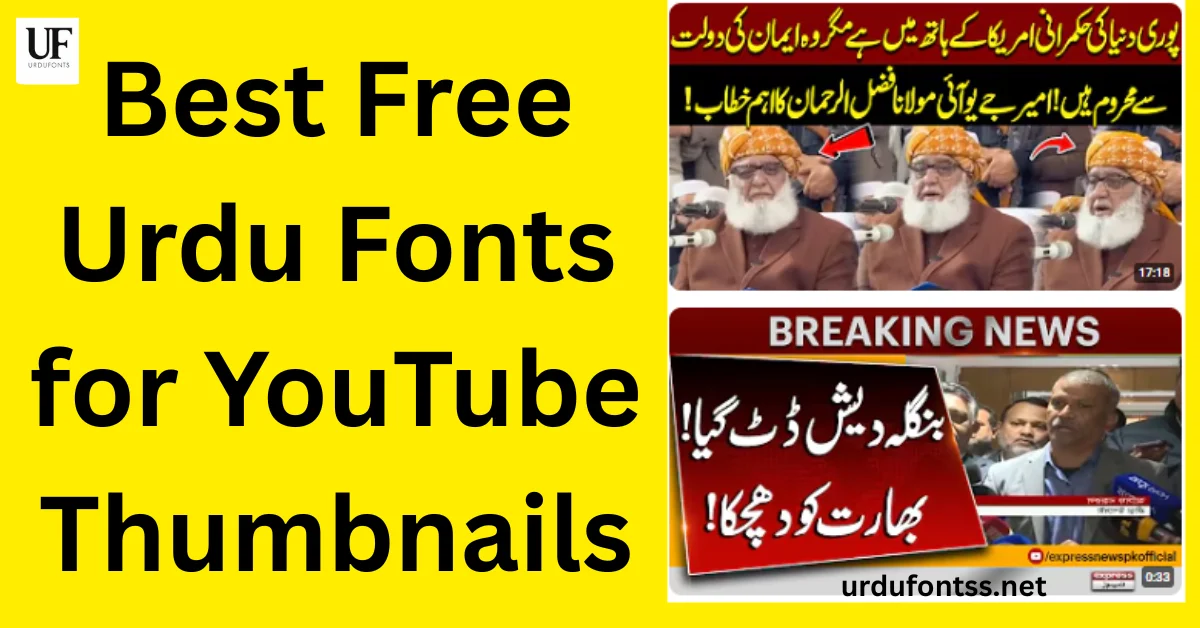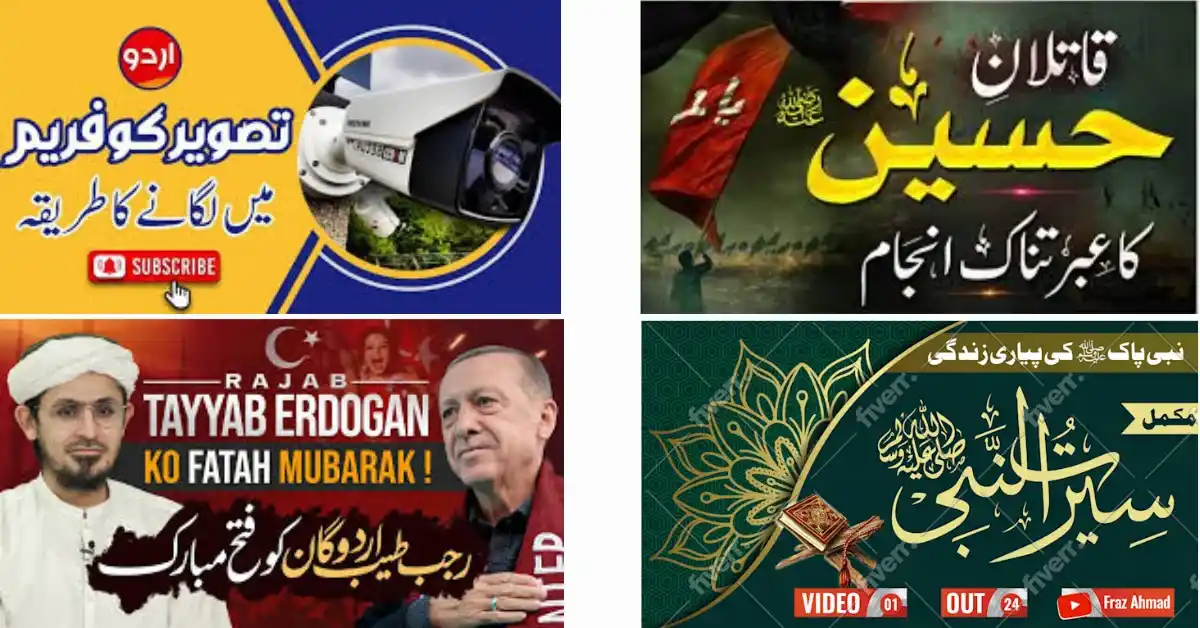
Best Free Urdu Fonts for YouTube Thumbnails – Guide for Creators
The best free Urdu fonts for YouTube thumbnails are the bold, high-contrast faces that stay readable at thumbnail size: UL Sajid Heading for punchy titles, Shamsheer Unicode for news channels, Tehreer Regular for modern vlogs, and Jameel Noori Nastaleeq for traditional and Islamic content. A thumbnail has about one second to earn a click — this guide covers the picks by channel niche, the design rules that make Urdu text readable at small sizes, and how to get these fonts into CapCut, PixelLab and Photoshop.
What Makes a Font Work on a Thumbnail
- Readable at phone size: most viewers see thumbnails on a phone — the font must survive being shrunk to a few centimetres wide.
- High contrast: bold strokes and open letterforms beat thin calligraphy; decorative faces fail where bold ones win.
- Three words or fewer: thumbnails are not headlines — keep the text to the shortest phrase that carries the hook.
- Niche voice: a news channel, a vlog and an Islamic channel want different moods — the picks below are grouped by niche.
Best Free Urdu Fonts for YouTube Thumbnails
Punchy titles — UL Sajid Heading
Built for headings, UL Sajid Heading is the default thumbnail face: heavy, compact and readable at the smallest sizes YouTube shows.
News channels — Shamsheer Unicode
News thumbnails need instant authority. Shamsheer Unicode is plain and fast-reading — the informational voice viewers trust for breaking news.
Vlogs and lifestyle — Tehreer Regular
Modern channels want a contemporary feel. Tehreer Regular is clean and light with 689 verified glyphs — modern without looking trendy.
Islamic and traditional content — Jameel Noori Nastaleeq
Religious lectures, naats and classical poetry need the traditional voice. Jameel Noori Nastaleeq carries that register — set it large, since Nastaliq needs room.
Small supporting text — Urdu Naskh Unicode
Episode numbers, dates and sub-lines need a compact, even face — Urdu Naskh Unicode stays legible where display faces turn to noise.
Poetry and drama — Zohra Unicode
For mushaira clips, drama OSTs and emotional content, Zohra Unicode brings a softer, expressive hand — use it for one line only, never the whole thumbnail.
Thumbnail Design Tips for Urdu Text
- Two faces maximum: one display face for the hook, one plain face for the sub-line — more than that looks cluttered at small size.
- Contrast against the background: white or yellow Urdu text on a darkened photo area; add a subtle stroke or shadow so letters separate from busy backgrounds.
- Right-align for RTL: Urdu reads right to left — anchor the text block to the right side of the thumbnail.
- Leave the face visible: if the thumbnail has a person, keep text off their face — text over faces kills clicks.
- Test at real size: shrink the design to a phone-width strip and read it before uploading.
Common Problems & Solutions
| Problem | Solution |
|---|---|
| Urdu text unreadable at thumbnail size | Switch to a bolder face (UL Sajid Heading) and cut the text to three words |
| Text lost against the background | Darken the photo behind the text or add a stroke/shadow |
| Font missing after phone restart | Re-import the TTF into the app; mobile apps keep fonts in-app, not system-wide |
Final Words
For YouTube thumbnails, pick one bold face that matches your niche, keep the text to three words, and test it at phone size before uploading. UL Sajid Heading for punch, Shamsheer for news, Tehreer for vlogs, Jameel Noori Nastaleeq for traditional content — download any of them from its page and set your next thumbnail apart.
Frequently Asked Questions (FAQs)
What are the best Urdu fonts for YouTube thumbnails?
UL Sajid Heading for punchy titles, Shamsheer Unicode for news, Tehreer Regular for vlogs, and Jameel Noori Nastaleeq for Islamic and traditional content — each chosen for readability at small sizes.
One consistent display face builds channel identity — keep the same headline font across videos and vary only the words.
How many words should be on a thumbnail?
Three or fewer. Thumbnails are glanced at, not read — the title carries the detail, the thumbnail carries the hook.